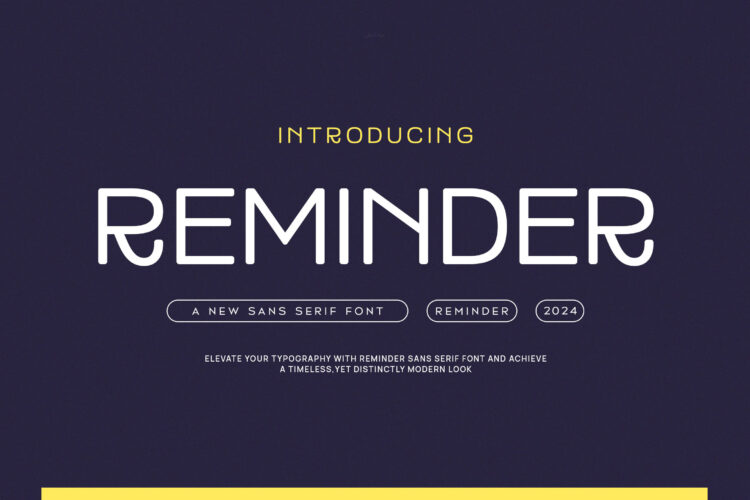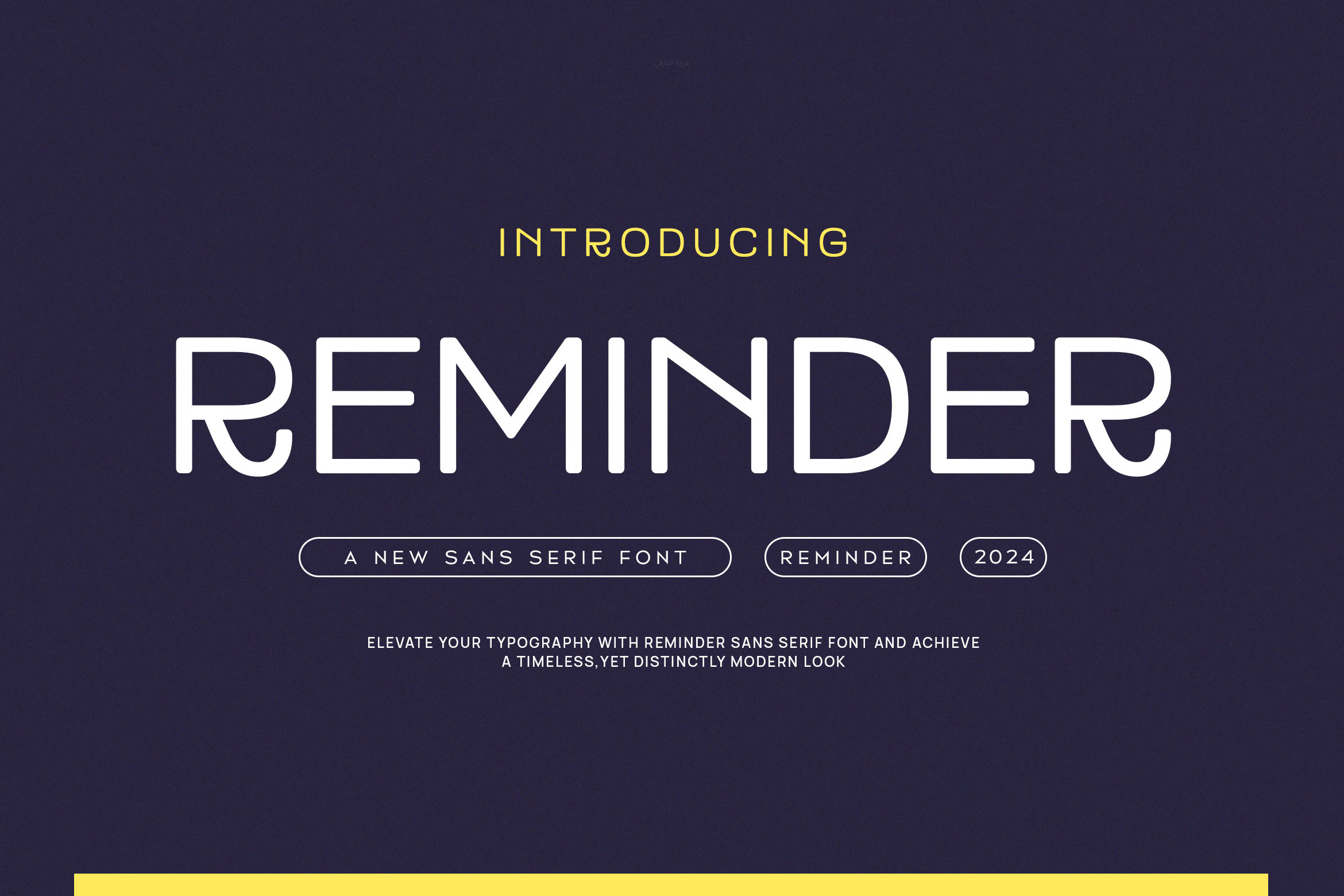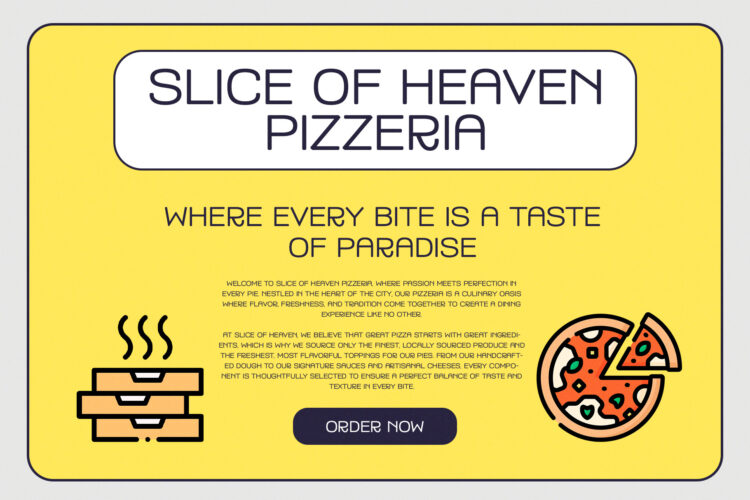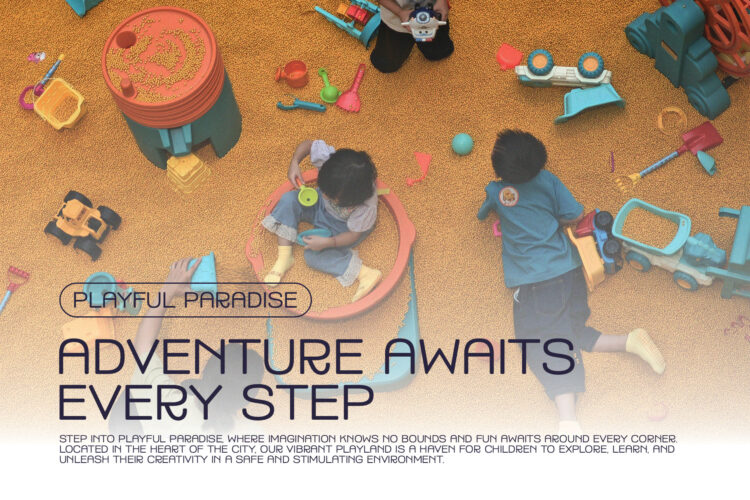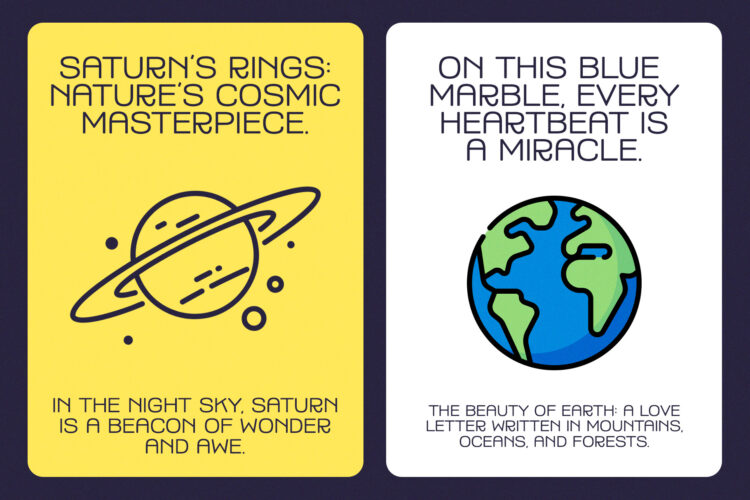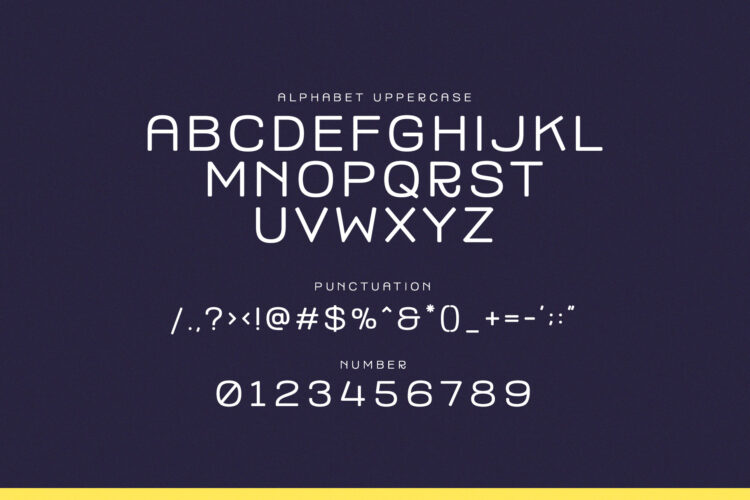
Introducing Reminder – Modern Display Sans Serif.
Reminder is a modern and simple font, best used as a display for headings, logos, branding, magazines, product packaging and invitations.